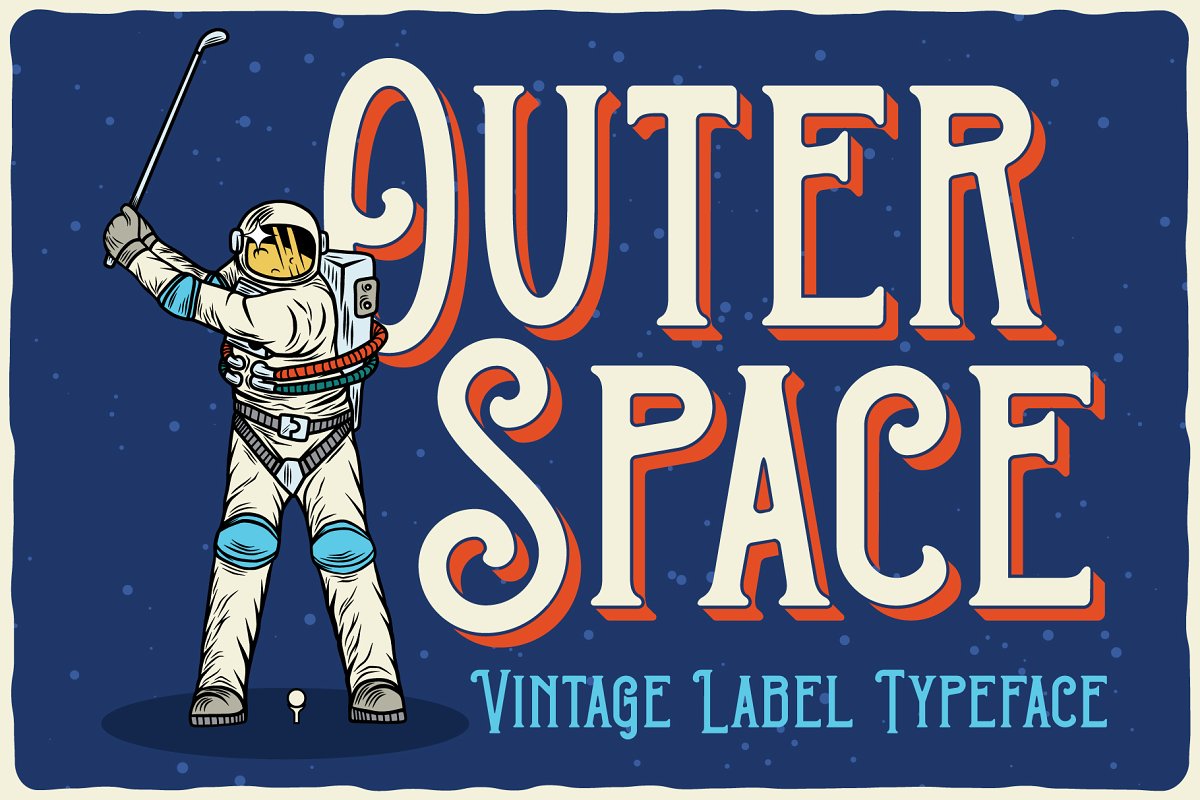
Introducing a vintage look label font named “Outer Space”. All available characters you can see at the screenshot.
This font has 4 styles (including layered shadow effect style). This font will good viewed on any retro design like poster, t-shirt, label, logo, etc.
Features:
- A lot of additional characters and multilingual support
For using the shadow effect layer:
- Type your text in Regular.
- Copy that and paste in the same position.
- Change the style to Shadow Effect.